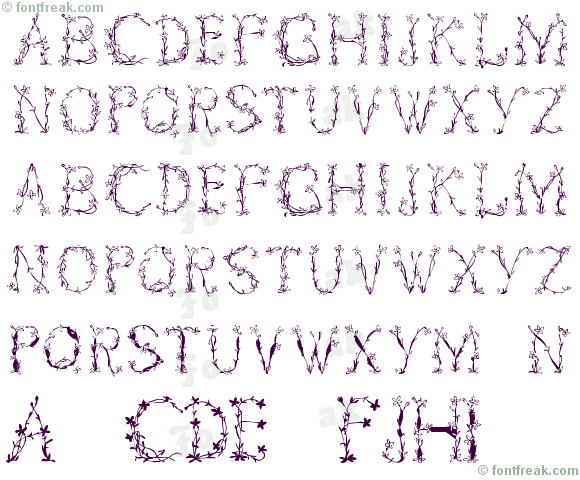
Florabetic
About Florabetic
Florabetic by Manfred Klein is a charming decorative font that embodies the essence of whimsy and nature. This unique typeface features a playful design characterized by intricate floral motifs that intertwine throughout the letters, making it a standout choice for various creative projects. The font's stroke weight is light to medium, providing a delicate contrast that enhances its organic feel. The spacing between the characters is thoughtfully designed to maintain legibility while still allowing the decorative elements to shine through.
Florabetic is particularly well-suited for projects that call for a touch of elegance and creativity. It can elevate wedding invitations, adding a romantic flair that resonates with couples seeking a unique aesthetic. Additionally, it works beautifully for greeting cards and scrapbook projects, allowing crafters to infuse their designs with a personal touch. Restaurant menus can also benefit from this font, providing a charming and inviting atmosphere that reflects a love for nature and creativity. Graphic designers and content creators looking to add a distinctive element to their work will find Florabetic to be an invaluable asset.
What sets Florabetic apart is its ability to blend artistic expression with practical utility. The floral embellishments not only enhance visual appeal but also evoke a sense of warmth and charm. For those seeking a unique touch in their design projects, the Florabetic font free download offers an opportunity to bring a whimsical floral elegance to life.